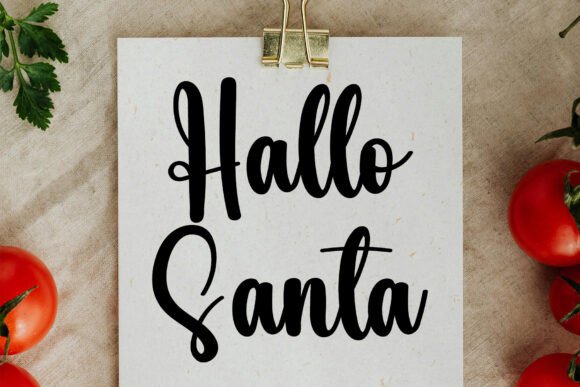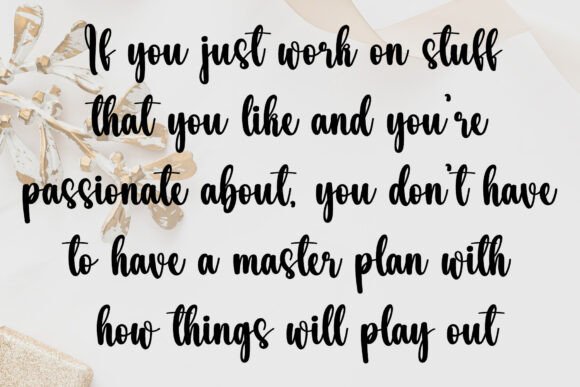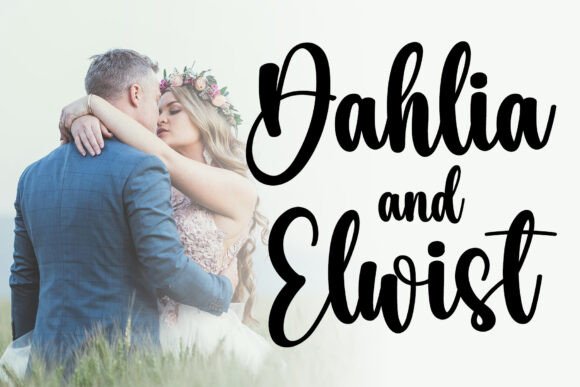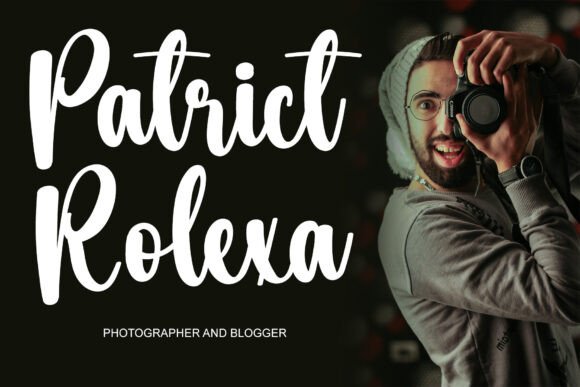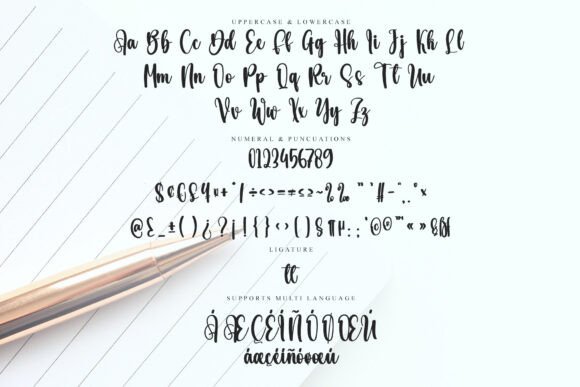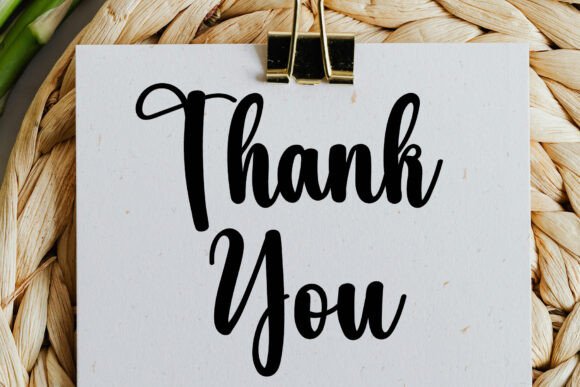
The Perfect Touch: Discovering the Autography Font
Have you ever felt that perfect creative spark, where the words flow effortlessly onto the page, and you can almost taste the joy of bringing your vision to life? That’s exactly what the Autography Font is all about – capturing the essence of handwritten elegance and infusing it into your designs.
With its stylish and modern aesthetic, the Autography Font is perfect for a wide range of applications, from greeting cards to headlines, branding, and packaging. Its versatility makes it an invaluable asset for designers looking to add a personal touch to their creations.
What sets the Autography Font apart is its PUA encoding, which allows designers to easily access all the amazing glyphs and ligatures, taking their designs to the next level of sophistication and beauty.
Autography Font Key Features
- Unique Characteristics: This script font features beautiful, handwritten strokes with subtle imperfections, giving it a personal and unique touch.
- Language Support: Autography Font supports a wide range of languages, including Latin, Greek, and Cyrillic scripts.
- Font Styles: Autography Font comes in regular and italic styles, allowing for a range of creative possibilities.
Designer Review: Autography Font
Overall, I think the Autography Font has some great qualities, but it’s not perfect. ✨ Here are a few things that work well:
- Unique design: The Autography Font has a distinctive, cursive feel that sets it apart from other fonts.
- Good legibility: The font is easy to read, even at smaller sizes, making it suitable for body text.
However, there are some limitations to consider: ⚠️
- Limited character set: The font’s character set is somewhat limited, which may make it less suitable for certain projects.
- No bold or italic variations: While the font’s regular weight is nice, the lack of bold or italic variations can make it harder to use in certain contexts.
- Not ideal for headlines: While the font is great for body text, I think it’s a bit too subtle for headlines, which may get lost in the design.
Overall, I think the Autography Font is a solid choice for projects where you need a clean, cursive font. However, it may not be the best fit for every project, and its limitations should be carefully considered before use.
For a more authentic look, use the font in combination with a distressed or handwritten background.
Experiment with different layer blending modes and opacity levels to achieve a unique look.
The Autography Font is perfect for:
- Artistic quotes and poetry.
- Handmade greeting cards and gift tags.
Remember to experiment with different font sizes, colors, and styles to get the most out of the Autography Font.